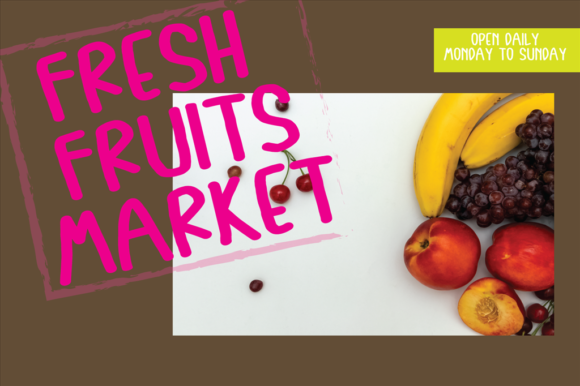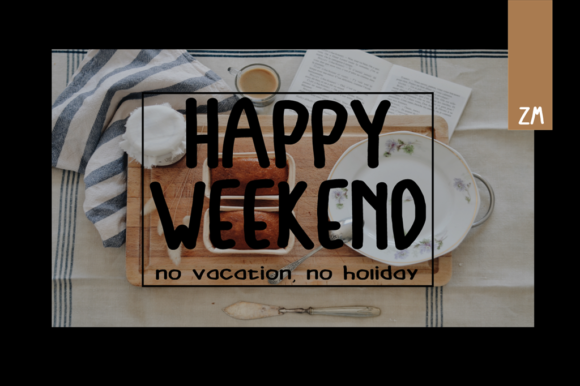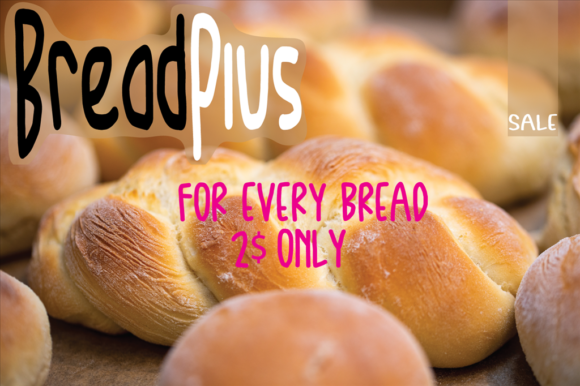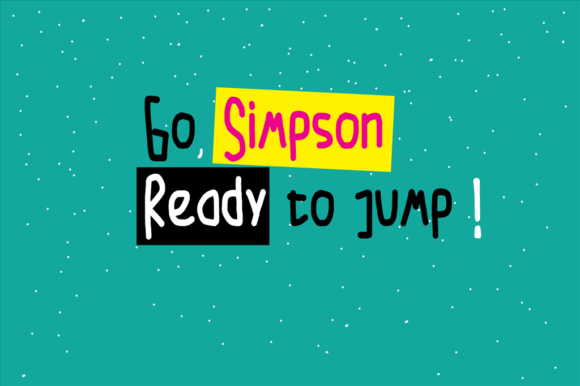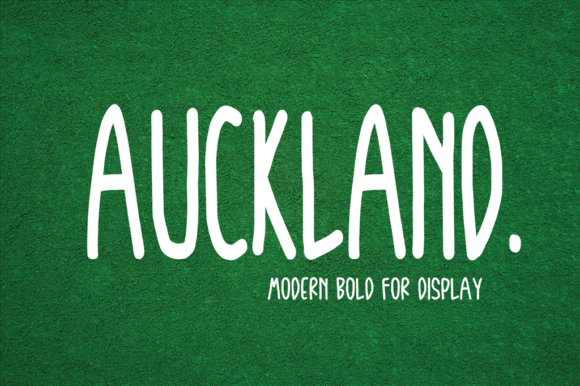
The Ultimate Display Font: Auckland and Its Endless Creative Possibilities
Have you ever been in the middle of a design project, and suddenly, you’re stuck on finding the perfect font? I recall a recent experience where a client requested a bold, yet quirky font for their branding. After hours of searching, I stumbled upon Auckland Font, and it instantly became my go-to. In this article, I’ll share my journey with Auckland, its features, and how you can make the most of it in your creative projects.
An Honest Review of Auckland Font
Auckland Font has quickly become a favorite in my design arsenal. Here’s what I love about it:
- ✨ Tall and Bold: Auckland’s vertical proportions make it perfect for headings, titles, and statements that demand attention.
- ✅ Quirky and Unique: Its subtle quirks add a touch of personality to any design, setting it apart from more traditional fonts.
- 🌈 Versatile: Whether you’re working on digital designs, presentations, greeting cards, or crafting projects, Auckland adapts seamlessly.
While Auckland is an excellent font, it’s not without its minor quirks:
- 🤔 Legibility at Small Sizes: Auckland is designed for display purposes. At smaller sizes, its boldness and quirks might make it slightly harder to read.
- ⚠️ Glyph Variety: While it has a good range of glyphs, it might not cover every special character you need. Always check the character set before finalizing your design.
The Story Behind Auckland Font
Auckland Font was designed with the modern creative in mind. Its creator aimed to produce a font that was not only bold and eye-catching but also infused with a bit of quirkiness. The goal was to help designers and hobbyists alike to add a personal touch to their projects without sacrificing readability and impact. While the exact details of its creation might be shrouded in mystery, it’s clear that Auckland was made to inspire creativity and make designing a joyful experience.
| What makes Auckland Font unique? | Auckland Font stands out due to its tall, bold, and slightly quirky design, making it perfect for display purposes. |
| Is Auckland Font suitable for body text? | While Auckland can be used for short paragraphs, it’s primarily designed for headings and display text due to its boldness and design characteristics. |
| Does Auckland Font support OpenType features? | Yes, Auckland Font supports OpenType features, including ligatures and stylistic alternates, which can enhance your design’s creativity and uniqueness. |
With its unique blend of boldness and quirkiness, Auckland Font is a versatile tool for any creative project. By understanding its features and how to utilize it across different platforms, you can unlock new possibilities for your designs. Whether you’re a professional designer or a creative hobbyist, Auckland Font is sure to become a valuable addition to your typography arsenal.